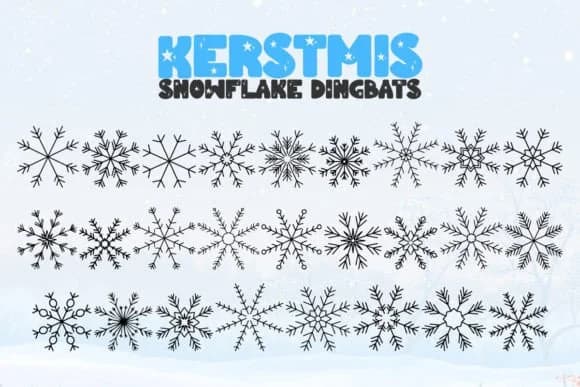
Kerstmis, created by Font-Tastic, is a dingbat collection that captures Scandinavian minimalism and the quieter side of hygge aesthetic. The symbols lean into clean lines and thoughtful negative space rather than heavy ornamentation, which means they work well in layouts that need texture without becoming visually overwhelming.
You'll find this font particularly useful for winter invitation suites, especially when you want something between generic clip art and fully custom illustration. Holiday gift tag collections, Scandinavian-themed planner spreads, and DIY craft projects all benefit from having a cohesive symbol language that feels intentional. It pairs naturally with hand-lettered text or simple sans-serifs for social media graphics or seasonal stationery sets. The modular nature of the glyphs means you can combine and layer elements in ways that start looking like your own design system rather than borrowed assets.
This is the font to reach for when you're building handmade collections, boutique holiday packaging, or any seasonal project where off-the-shelf decoration feels like giving up. The symbol set has enough range to sustain longer projects without repetition. Get it from Creative Fabrica and watch how quickly it becomes part of your workflow.
Kerstmis Font is a versatile dingbats font that works for both headings and body text. Pair it with a contrasting sans-serif or serif font to add visual interest and a clear distinction between titles and body copy.
Kerstmis Font